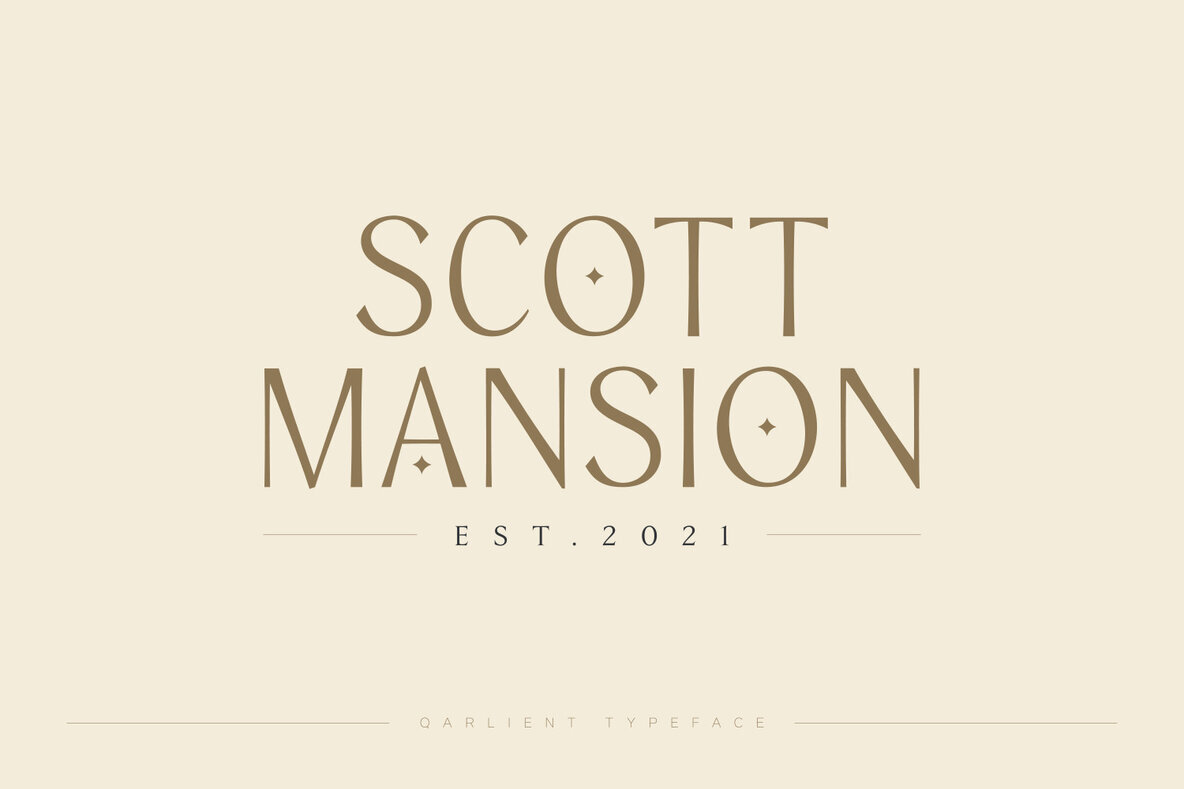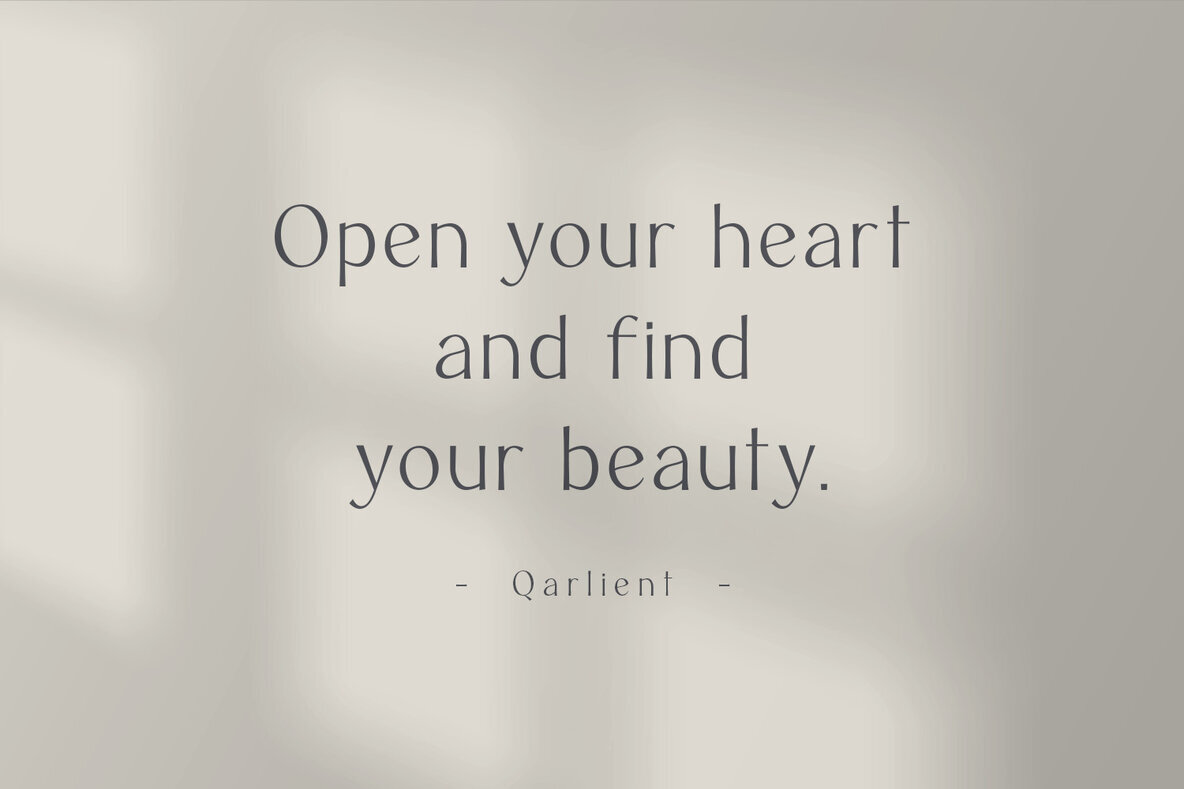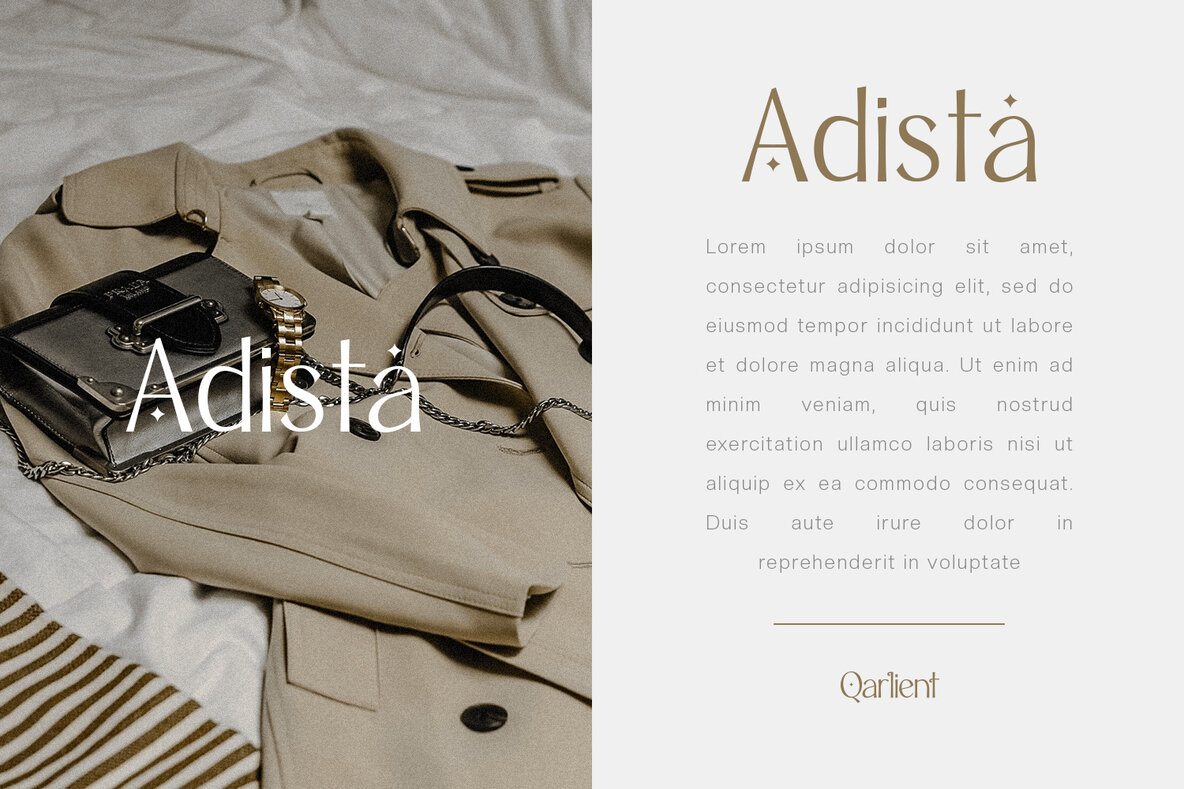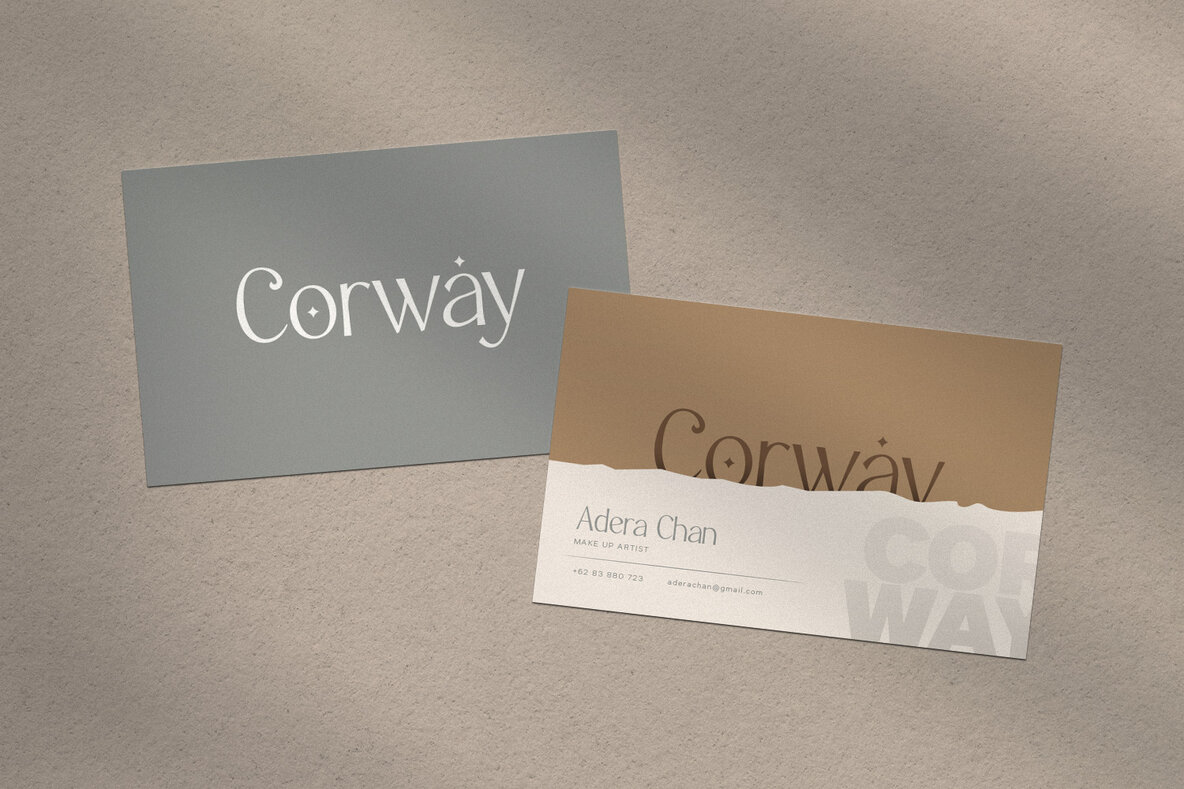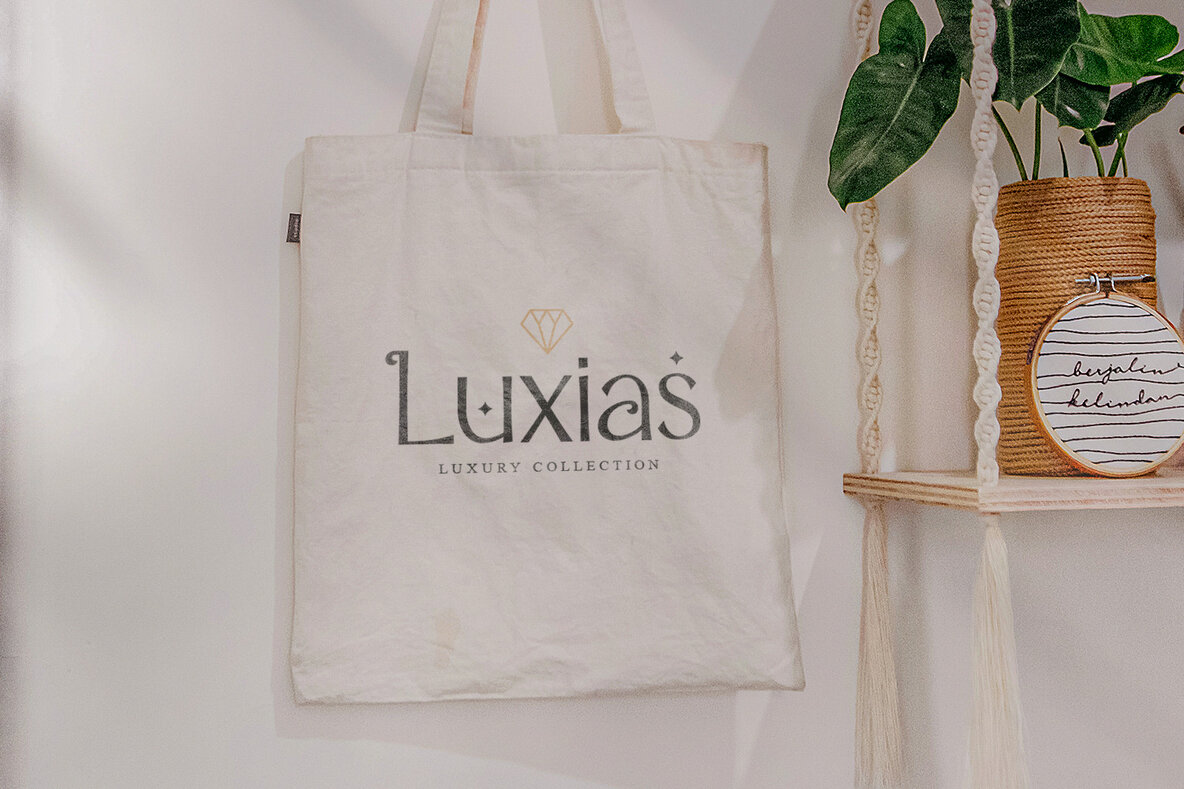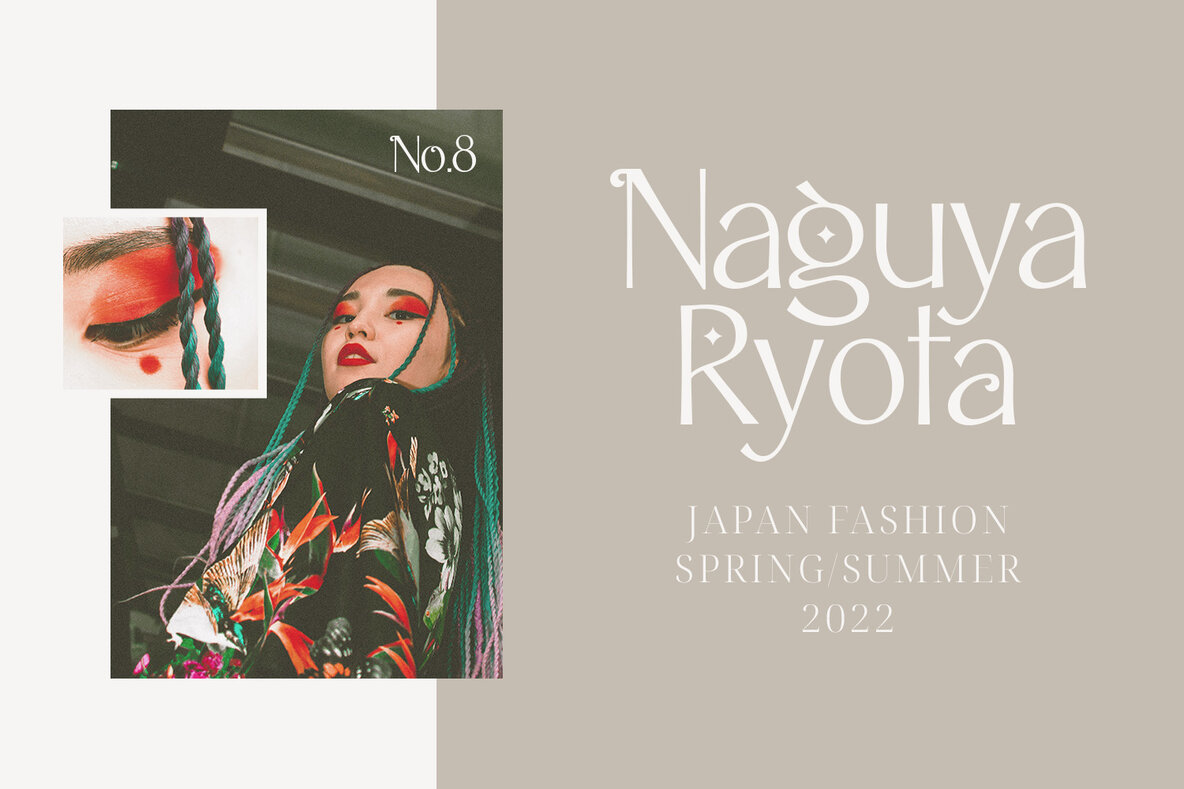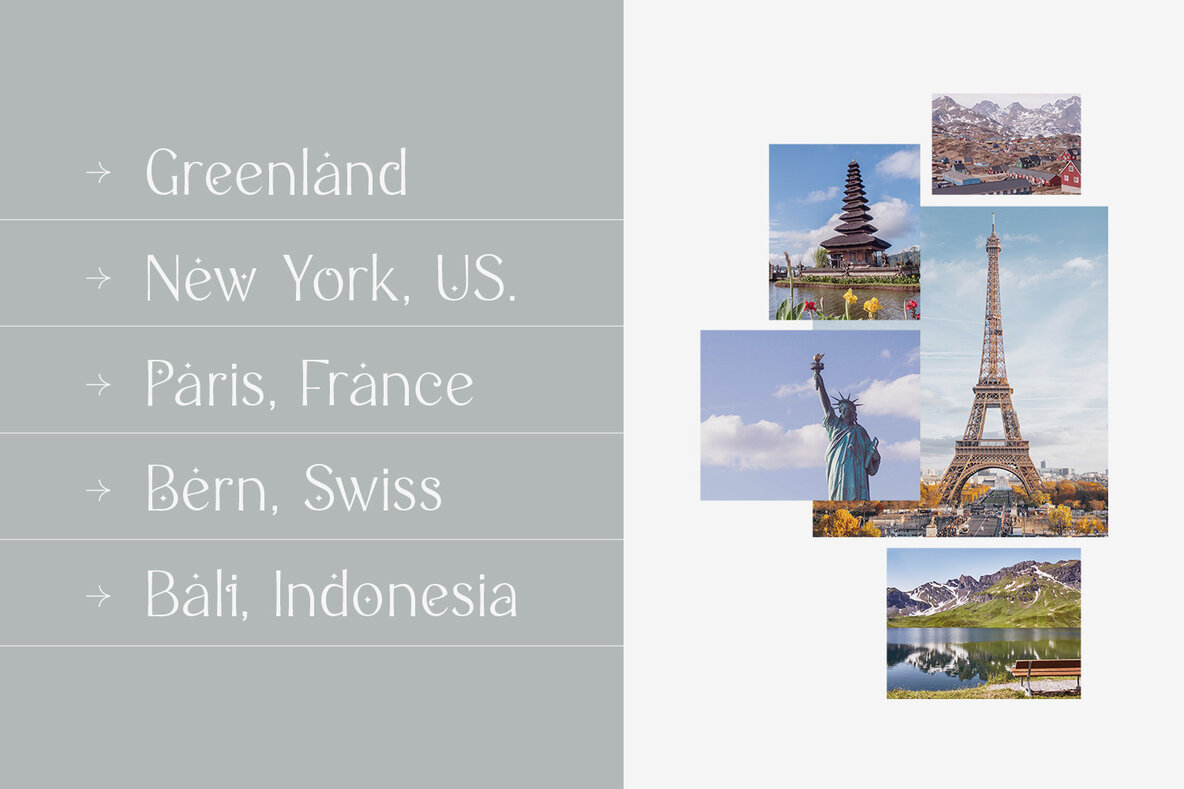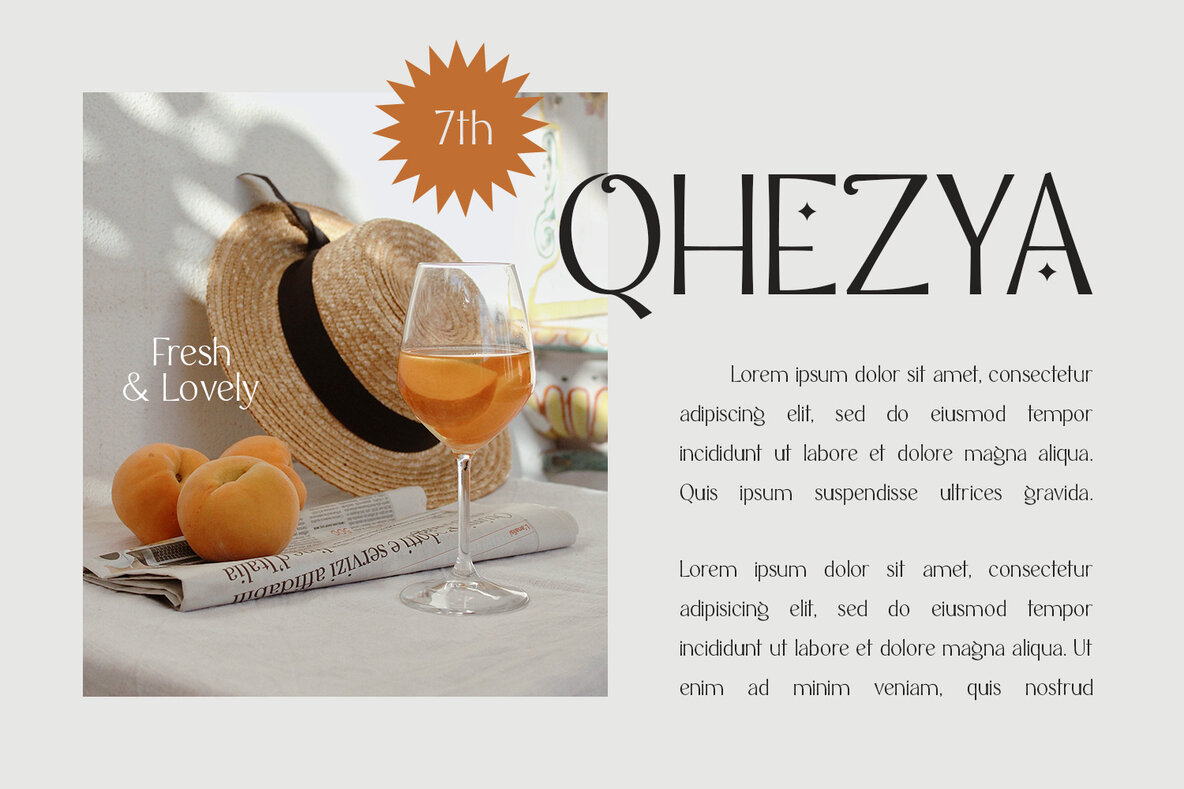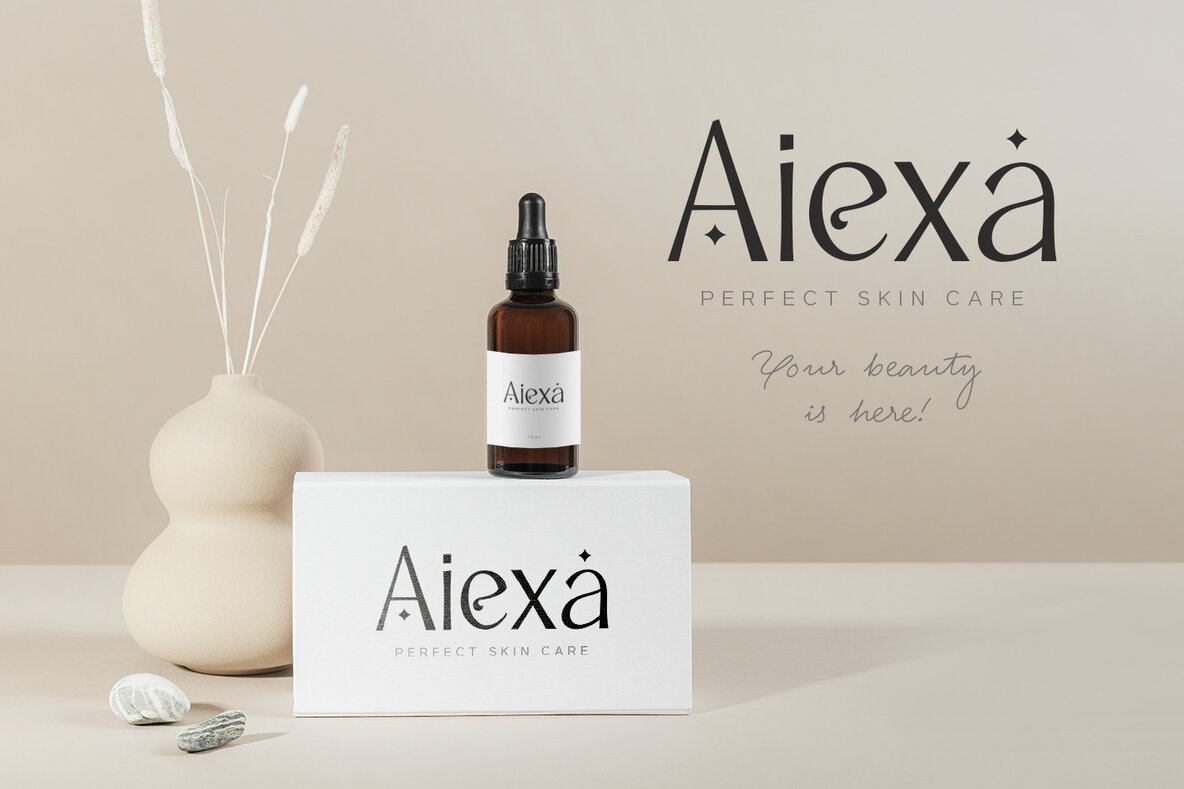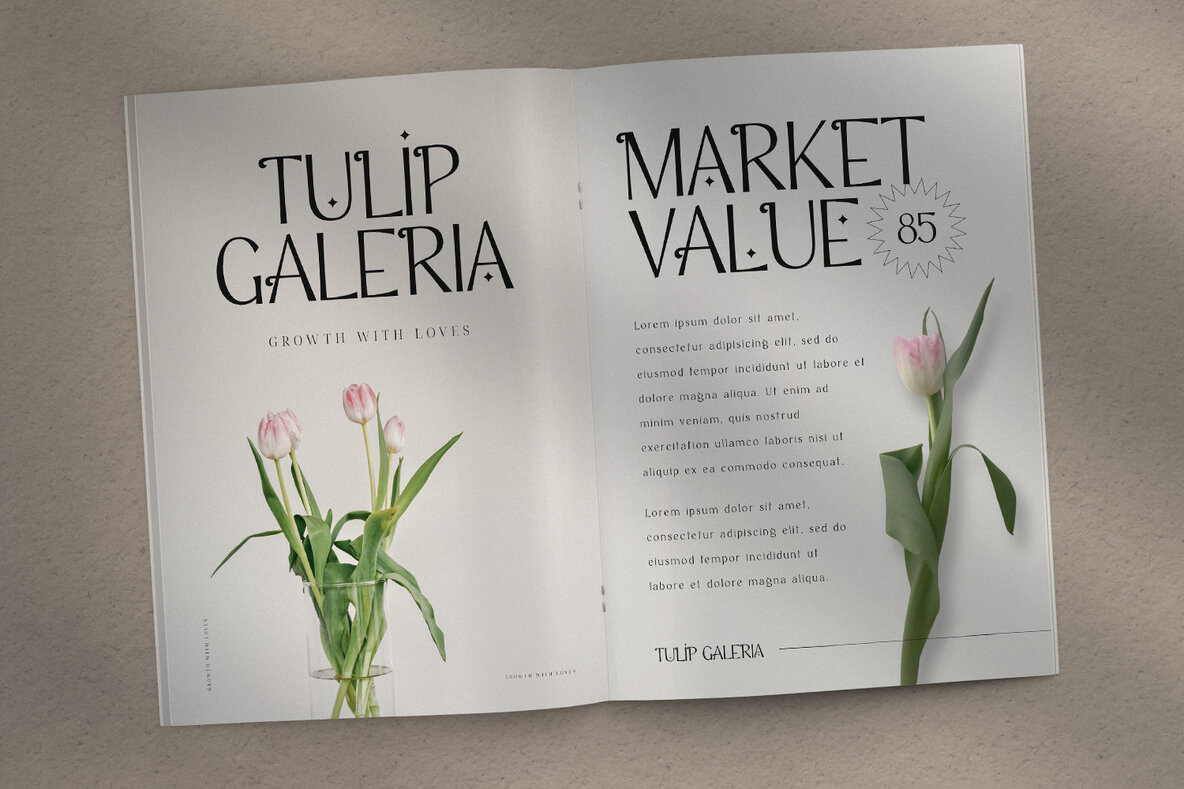
Qarlient Font
Qarlient is a powerful modern serif font with freshness, elegance and unique appearance. This font concept includes a wide range of inspirations, from ancient to classical to modern, making it a perfect font for low-key, modern and refined appearance. Ton of beauty and luxury alternates make this serif font very versatile. This gives any branding or logo design looks unique. Qarlient font is perfect for Magazine, Social Media, Poster, Business Card, and Many more that needs Unique touches.
FEATURES
- Stylistic Alternates
- Uppercase and Lowercase letters
- Numbering and Punctuations